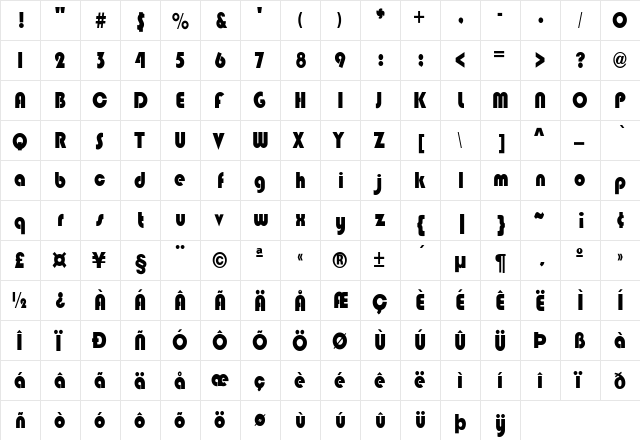
BixleeCnd-Heavy Regular
Design Context for BixleeCnd-Heavy Typeface
BixleeCnd-Heavy is a composed and adaptable typeface that performs quietly and consistently across a wide range of design contexts.